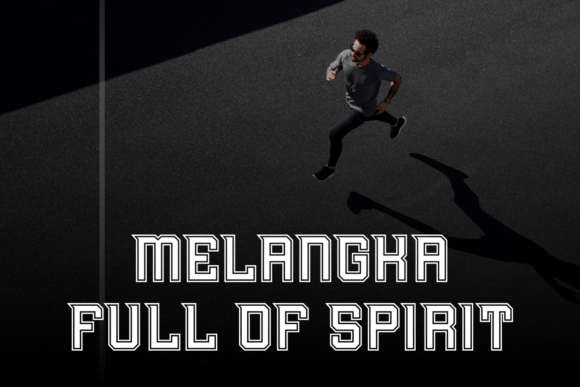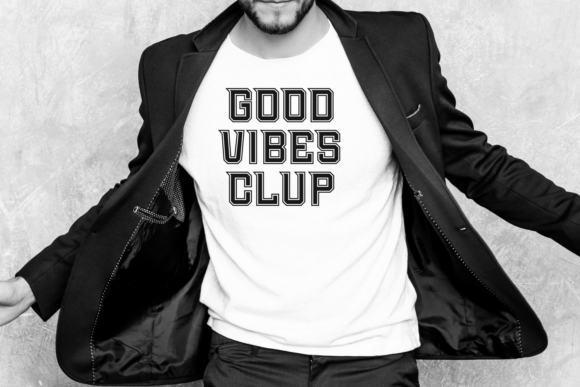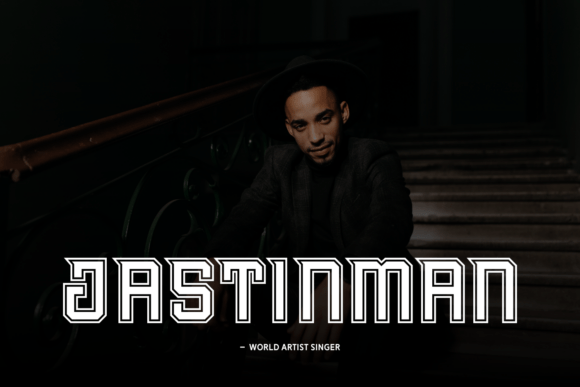
Quick Steps Font: A Bold Display Font for Striking Headlines!
About the Quick Steps Font
Experience the unique personality of Quick Steps Font, a font designed for impact. Introducing Quick Steps Display, a striking and versatile typeface hailed for its slab serif uniqueness. Perfect for book covers, branding initiatives and craft projects, this font makes a meaningful statement like no other. Imagine how it would shine on Father’s Day cards or Holiday greetings, adding a personalized touch that speaks volumes. Or how it could dramatically elevate your logo or logotype, carving a distinct identity that’s impossible to ignore.
Quick Steps Display is a proud creation from 7ntypes studio, offering a fluid symmetry that stands out on magazines, quotes, or beautifully designed multilingual outputs. Whether it’s a persuasive poster, a strategic promotional message, or a must-have product label, this font knows how to make its presence felt. It’s the perfect addition to the school curriculum, allowing creativity to flow in the silhouette of each letter.
With Quick Steps Display, every t-shirt becomes a canvas, every football shirt a symbolic representation. So make every alphabet count, make every word memorable, with the Quick Steps Display Font.
Quick Steps Font Usage Examples
Quick Steps Font Example